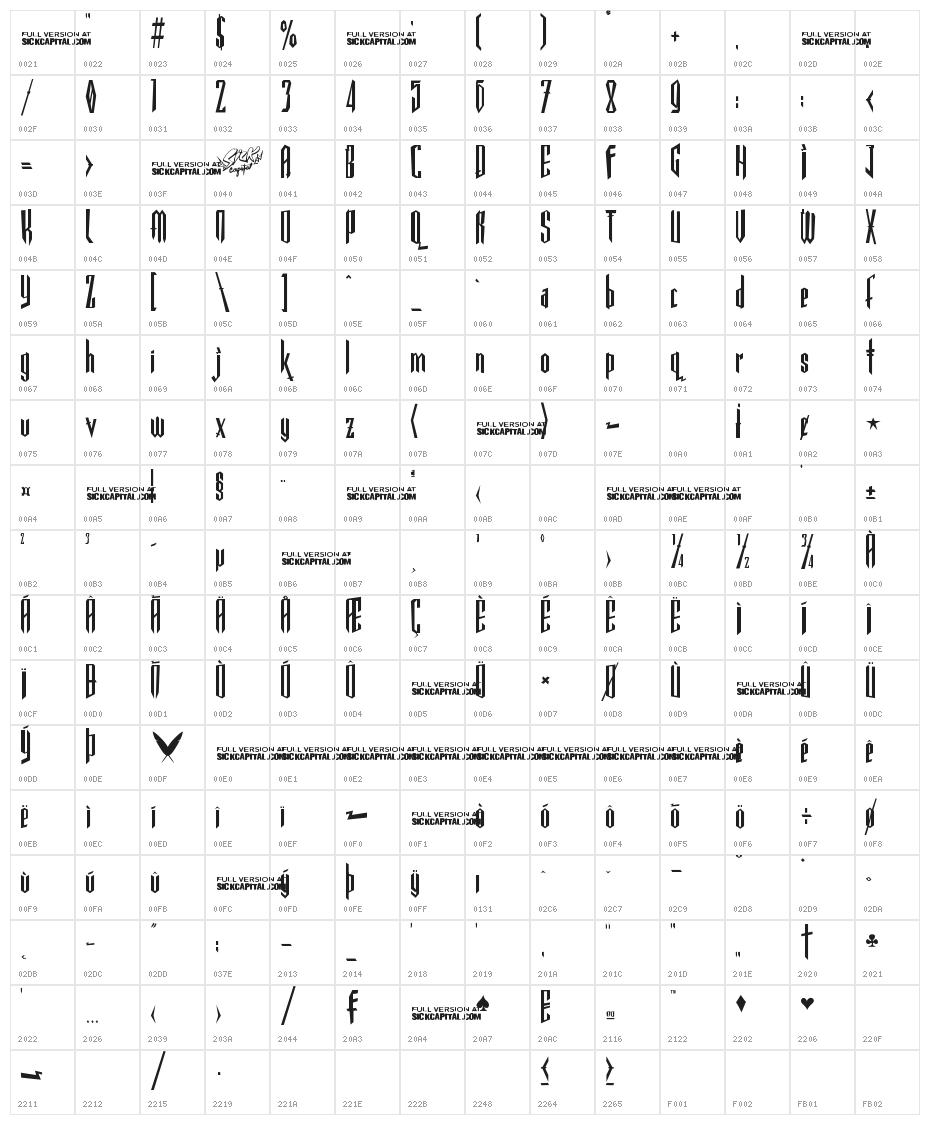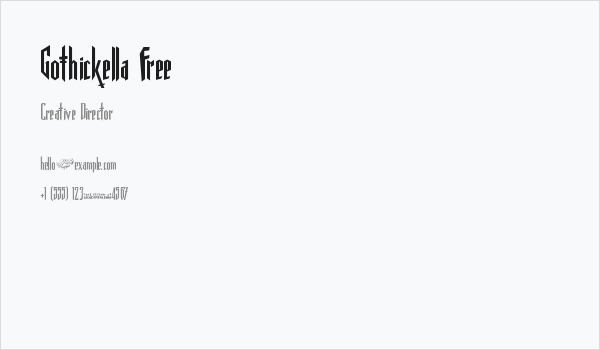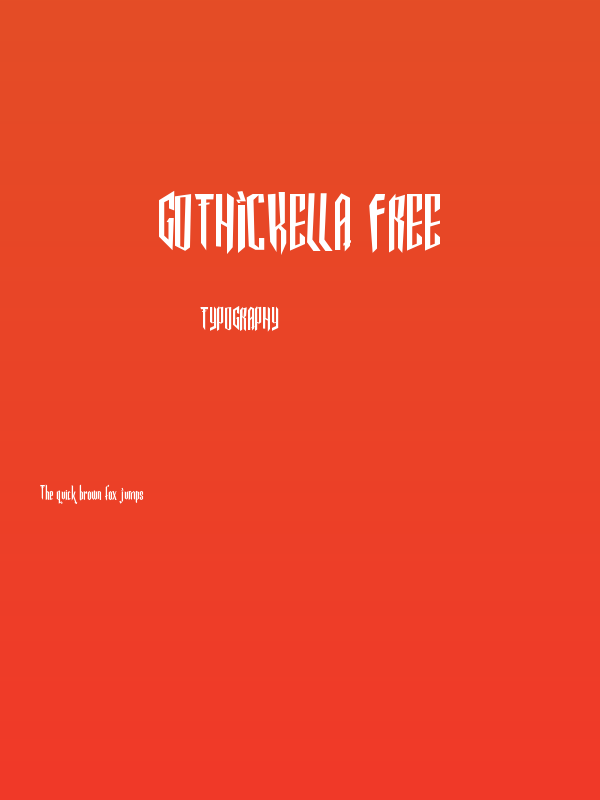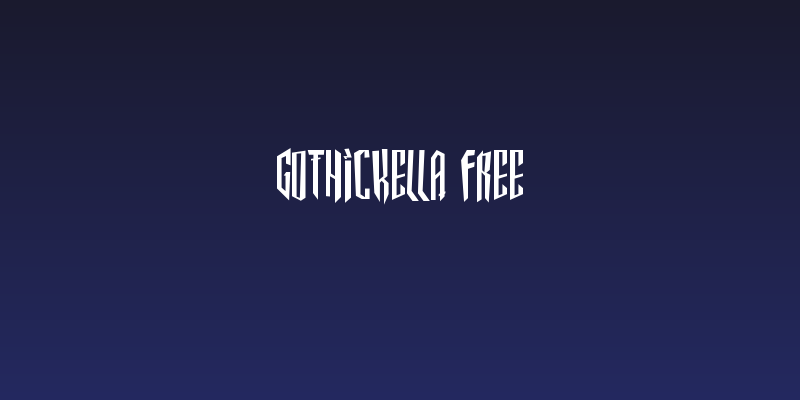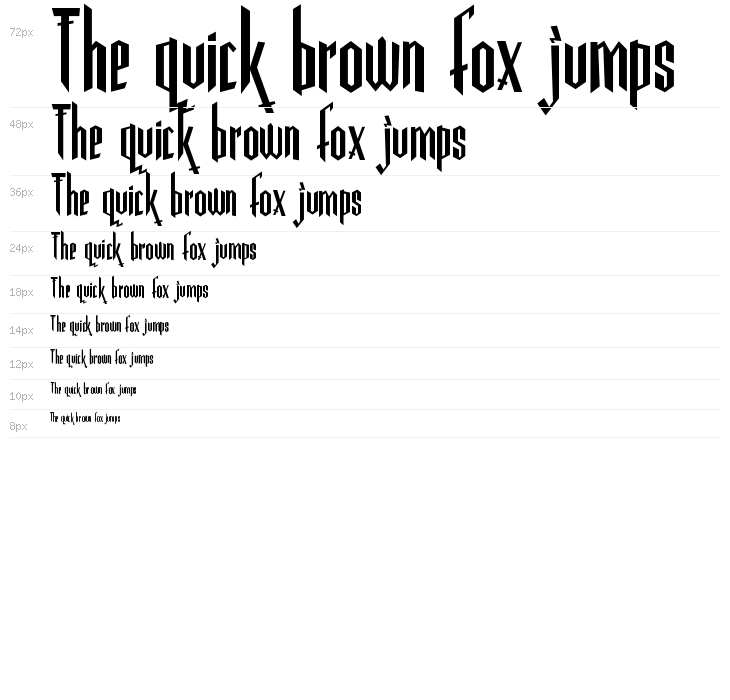
Gothickella Free Font
Gothickella Free Description
This font features a bold, angular design with a distinct gothic influence. The characters are elongated and sharp, with dramatic vertical strokes and pointed serifs that give it a striking, edgy appearance. The uppercase letters are particularly tall and narrow, while the lowercase letters maintain a consistent style with slightly more rounded edges. Numbers and special characters follow the same aesthetic, ensuring a cohesive look across all text. The overall design is reminiscent of medieval script, yet with a modern twist that makes it suitable for contemporary use.
Overall StyleModern Gothic
Proposed ProjectsIdeal for projects requiring a dramatic and edgy aesthetic, such as posters, album covers, or branding for alternative or gothic-themed events.